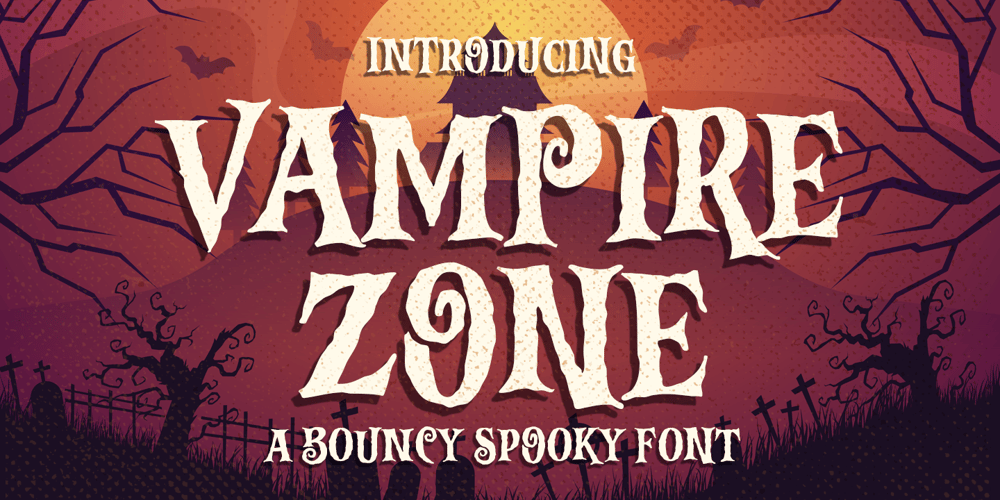
Vampire Zone
Vampire Zone font
Vampire Zone Font Family was designed by Bangkit Tri Setiadi and published by Blankids. Vampire Zone contains 1 styles and family package options. Introducing of our new product the name is Vampire Zone a Bouncy Spooky Font, Vampire Zone inspired by Bouncy horror style with a fun theme very good for horror, scary, spooky and halloween theme design.FEATURES : Uppercase Lowercase Number Punctuation Multilingual PUA Encode Opentype